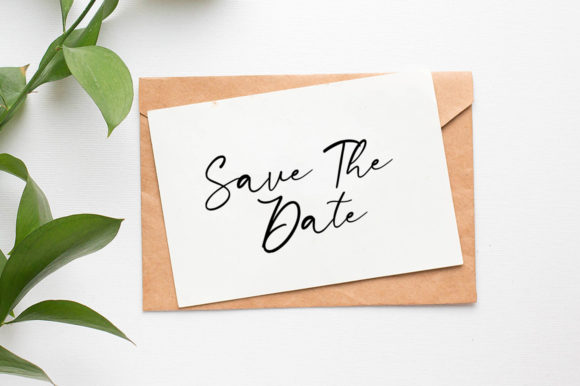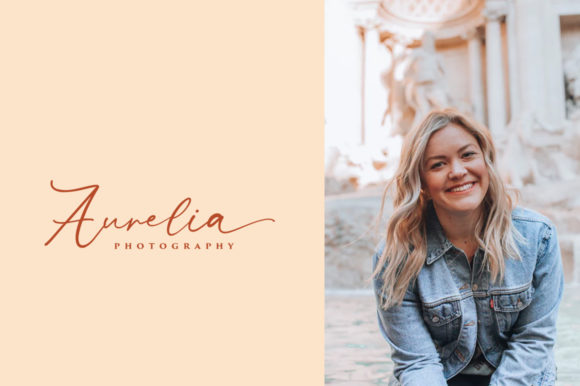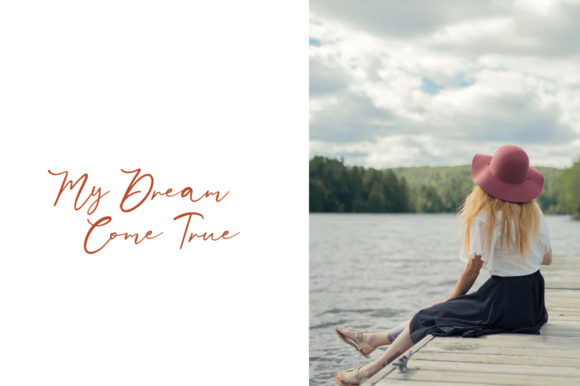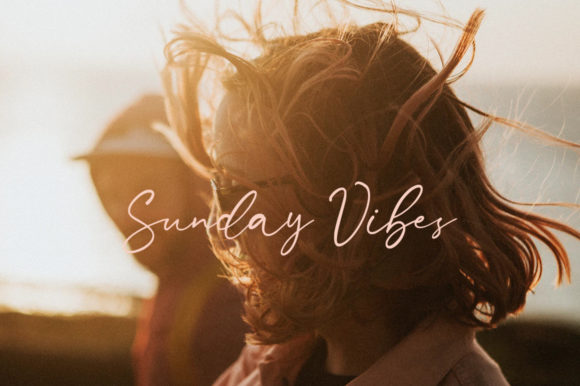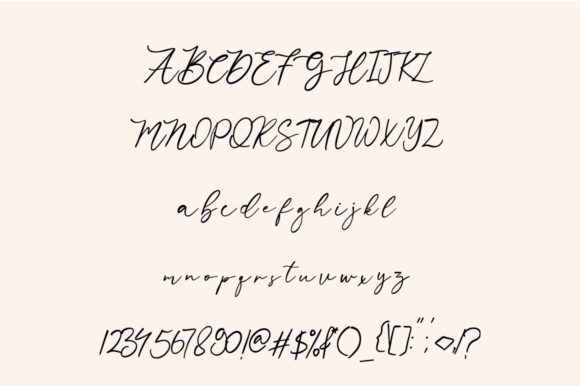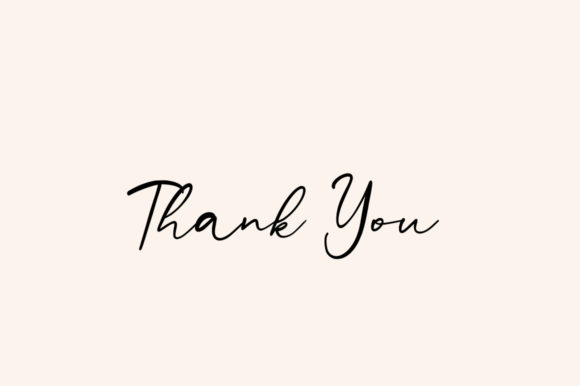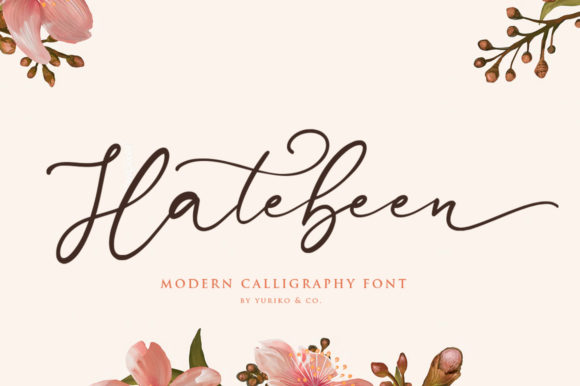
Discover the Unique Style of Hatebeen Font: Elevate Your Design Projects
In the world of typography, fonts play a crucial role in conveying messages, evoking emotions, and creating a lasting impression. For designers and crafters, finding the perfect font can be a daunting task, but with Hatebeen Font, you can add a touch of elegance and sophistication to your design projects. Inspired by classic typography, Hatebeen brings its own unique style to the table, making it an excellent choice for a wide range of applications.
The Inspiration Behind Hatebeen Font
Hatebeen Font draws inspiration from traditional typography, but with a modern twist. Its creator aimed to craft a font that not only pays homage to the classics but also introduces a fresh and distinctive aesthetic. The result is a script font that exudes elegance, making it perfect for designers looking to add a touch of refinement to their work.
Key Features of Hatebeen Font
- Versatility: Hatebeen is incredibly versatile, making it suitable for various design projects, from web and print to moving images and more.
- Script Style: This fantastic script font is designed to make a statement, with flowing lines and curves that add a touch of sophistication to any design.
- Variable Font Sizes: Hatebeen shines in headlines of all sizes, as well as in blocks of text with varying font sizes, ensuring consistency and visual appeal across different applications.
Best Use Cases for Hatebeen Font
Hatebeen’s adaptability makes it an excellent choice for a multitude of design projects. Here are some of the best use cases for this remarkable font:
- Headlines and Titles: Make a bold statement with Hatebeen in your headlines and titles, adding a level of sophistication and elegance to your designs.
- Branding and Logo Design: Create a lasting impression with Hatebeen as part of your brand’s typography, perfect for logos, business cards, and other marketing materials.
- Web Design: Enhance your website’s visual appeal with Hatebeen, using it for headings, subheadings, and other key text elements.
- Print Design: From brochures and posters to magazines and books, Hatebeen is an excellent choice for any print project requiring a touch of class.
- Motion Graphics: Bring your motion graphics to life with Hatebeen, using it in video titles, subtitles, and other text elements.
Why Choose Hatebeen Font?
With so many fonts available, why choose Hatebeen for your design projects? Here are a few compelling reasons:
- Unique Style: Hatebeen offers a distinctive style that sets it apart from more traditional fonts, allowing your designs to stand out.
- High Readability: Despite its elegant and flowing script style, Hatebeen maintains high readability, making it suitable for both headings and longer blocks of text.
- Flexibility: Whether you’re working on a digital project or a print design, Hatebeen adapts seamlessly, ensuring your designs look great across different mediums.
Incorporating Hatebeen Font into your design projects can elevate your work, adding a level of sophistication and elegance that’s hard to achieve with standard fonts. Its versatility, unique style, and high readability make it an excellent choice for designers and crafters looking to make a statement. Whether you’re working on web design, print materials, motion graphics, or anything in between, Hatebeen is sure to bring a touch of class and distinction to your creations. So, why settle for ordinary when you can make your designs spectacular with Hatebeen Font?